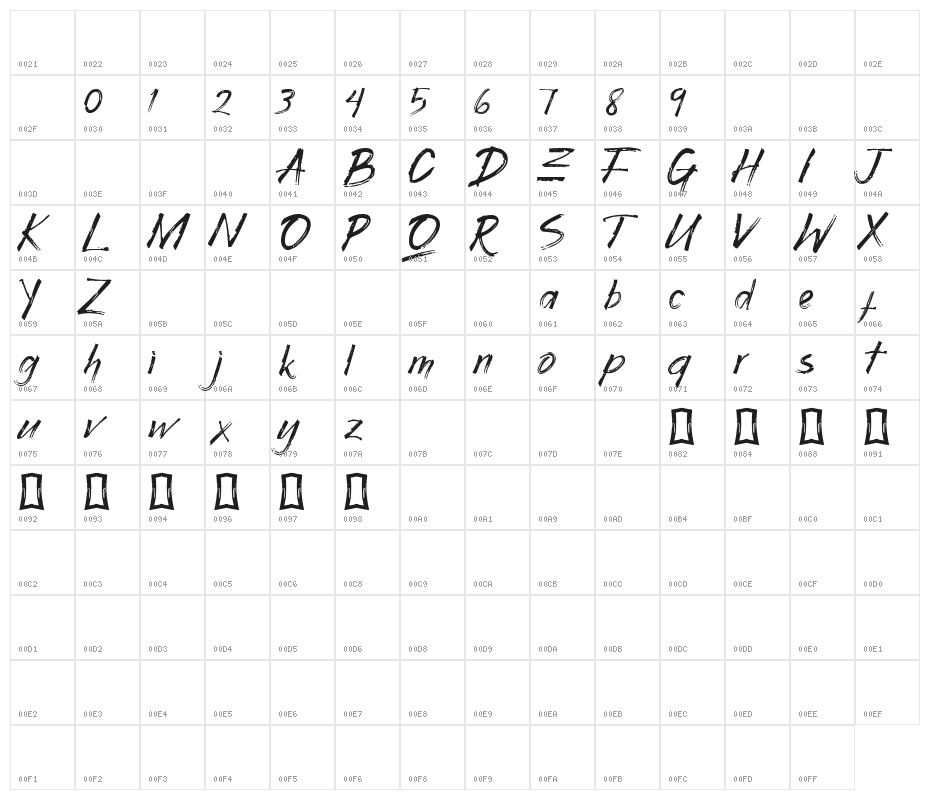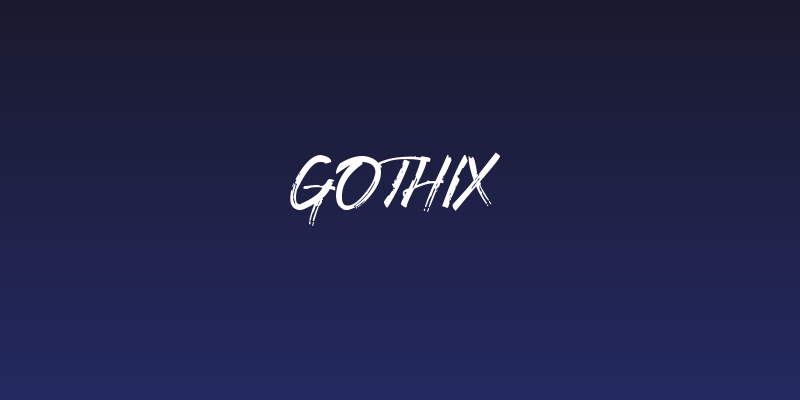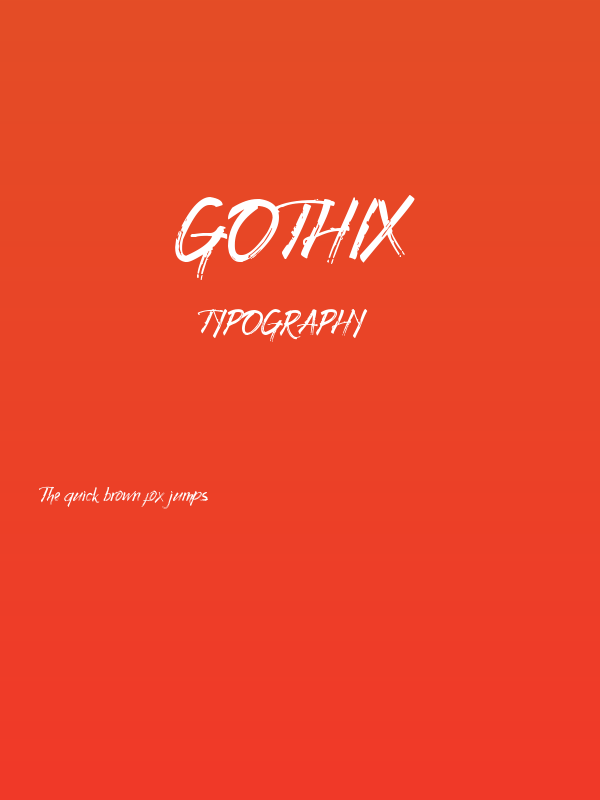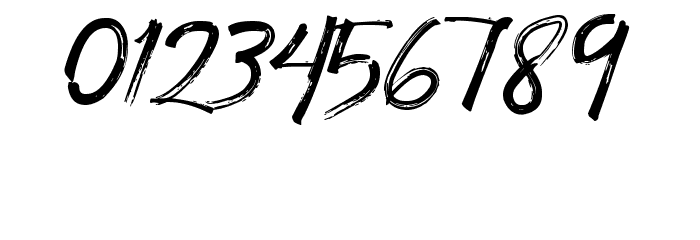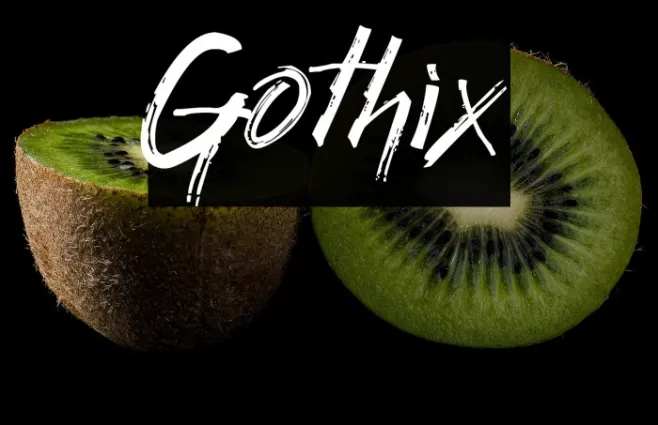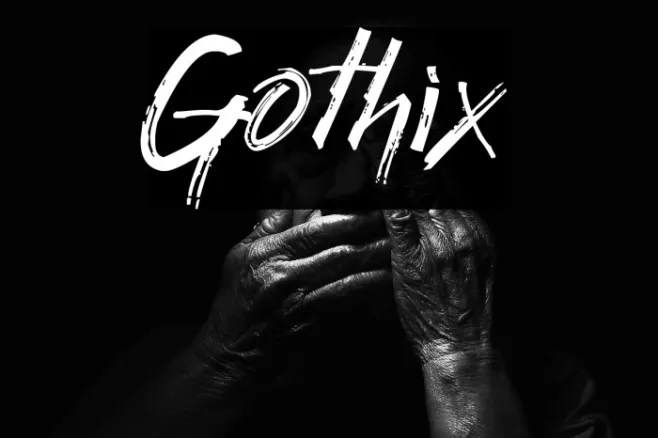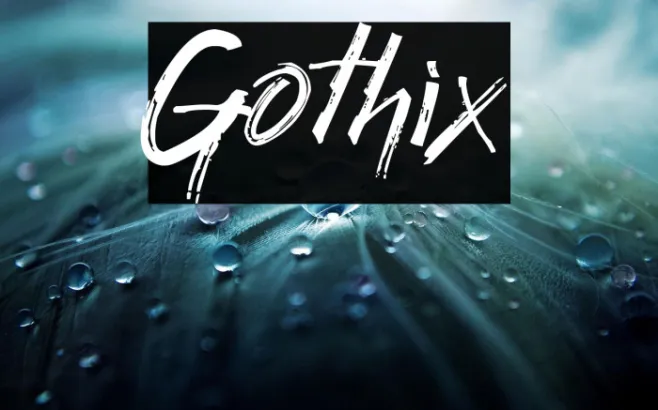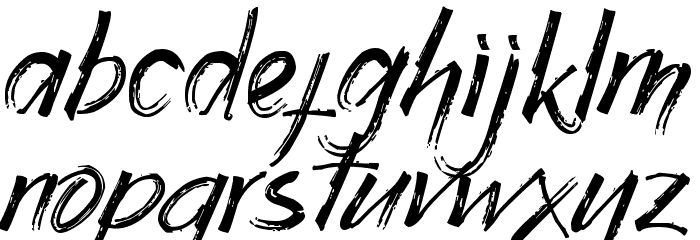
Gothix Font
Gothix Description
This font exhibits a dynamic and edgy style, characterized by its brush-like strokes and irregular edges, giving it a raw and expressive appearance. The uppercase letters are bold and striking, while the lowercase letters maintain a consistent flow, enhancing the font's overall fluidity. The numbers and special characters are crafted with the same energetic flair, ensuring a cohesive look across all elements. The font's unique design makes it stand out, with each character appearing as if it were hand-painted, adding a personal touch to any project.
| Proposed Projects | Ideal for projects requiring a bold statement, such as posters, album covers, and branding for creative industries. |